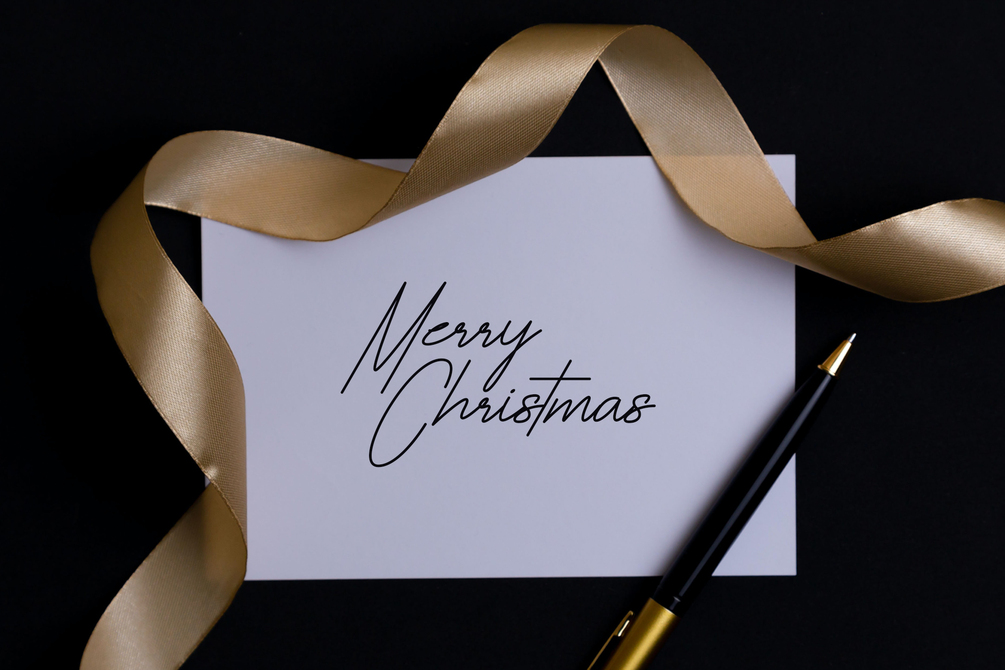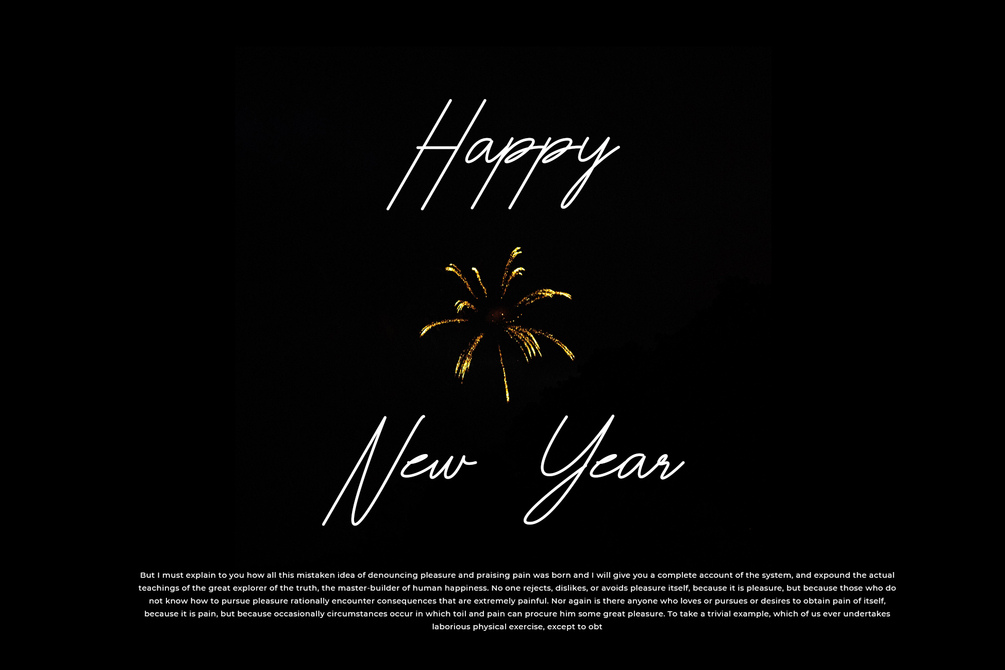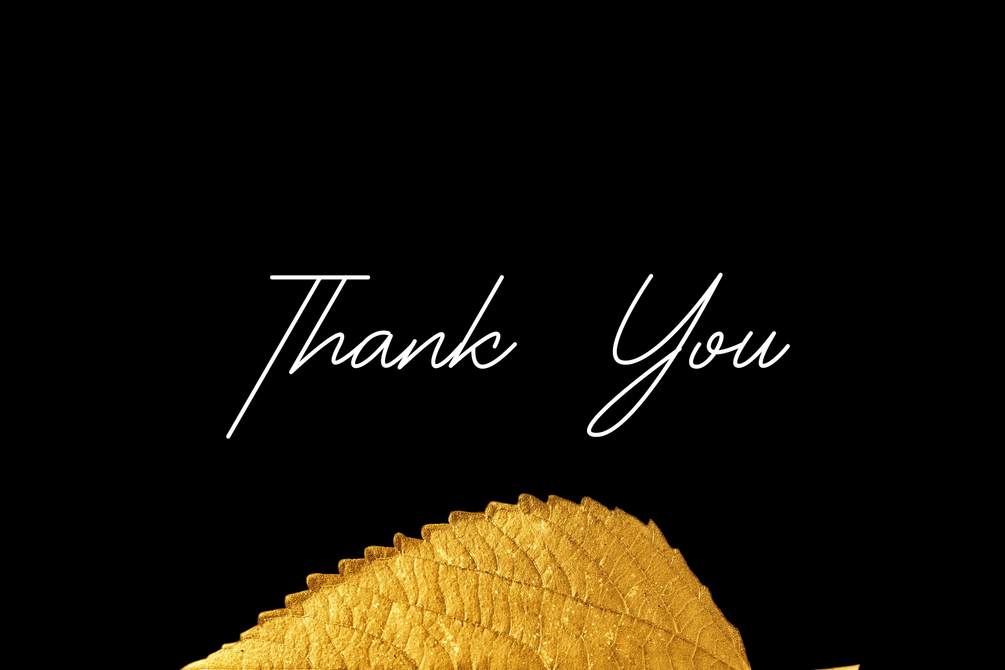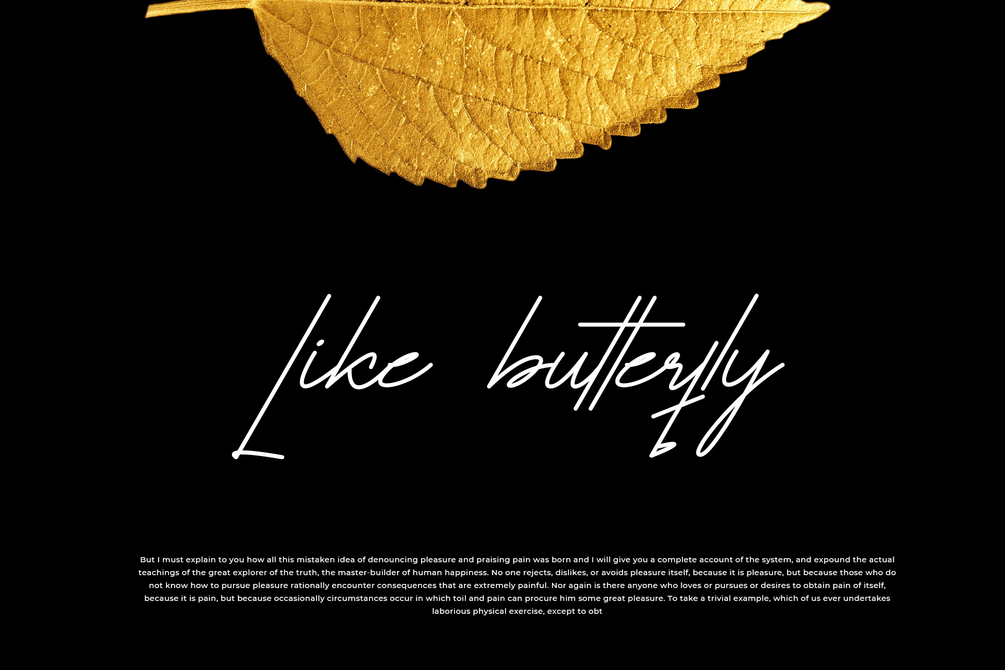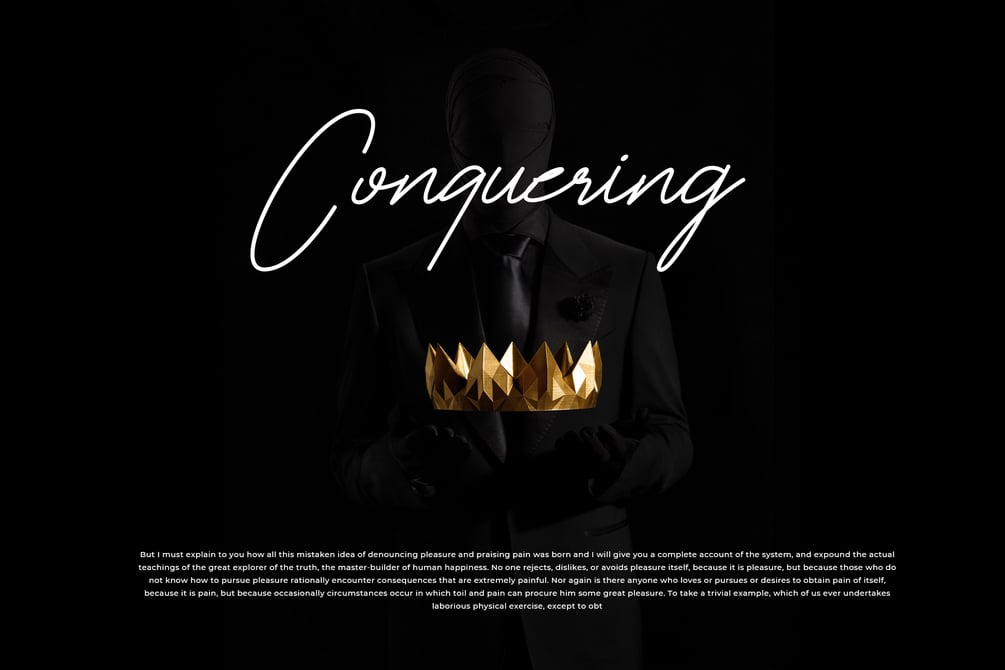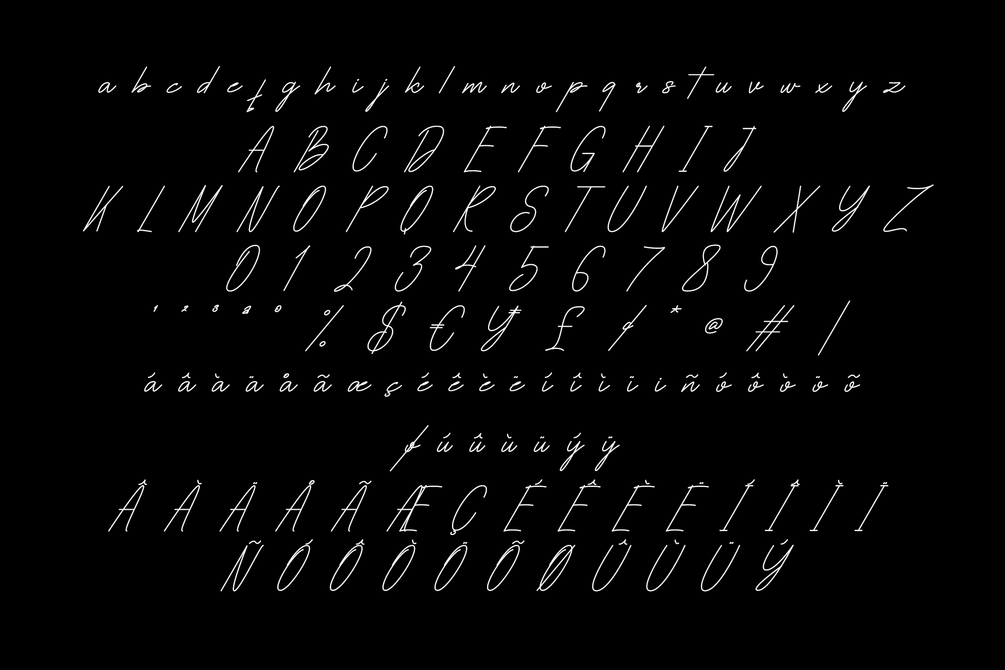
Butterfloo
Butterfloo is a script font with stylish signature line. suitable for photography, branding, logotype, product and so on. contains standard English letters, numbers, punctuation, and several accents that support multilingualism.